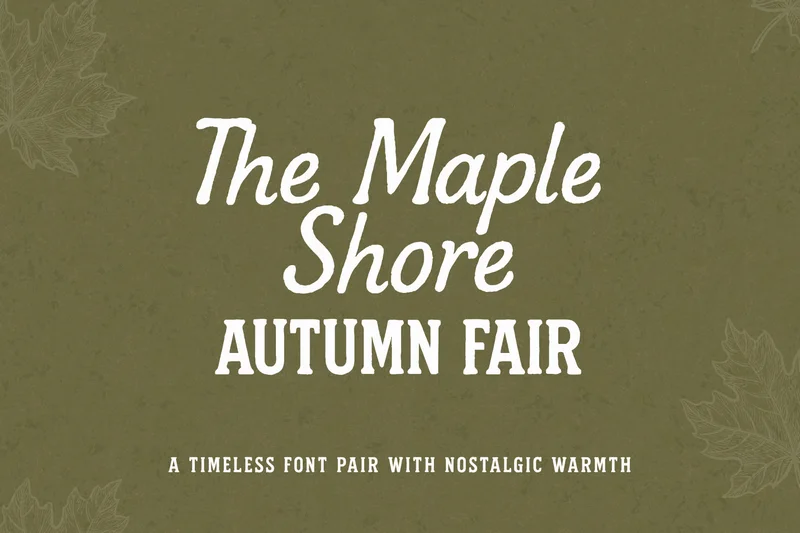
The Maple Shore – Font Duo with Nostalgic Warmth
Bring cozy, handcrafted charm to your designs with The Maple Shore, a timeless font duo inspired by vintage fairs and quiet autumn days.
This pair combines: The Maple Shore Script — a softly slanted handwritten type with gentle curves and organic flow. Autumn Fair Serif — a bold, rustic serif with classic proportions and warm character.
Perfect for branding, packaging, logos, posters, invitations, and editorial design — especially projects that call for a blend of elegance and countryside nostalgia.
Ideal for: Vintage branding • Coffee shops • Handmade goods • Autumn campaigns • Nature-inspired projects